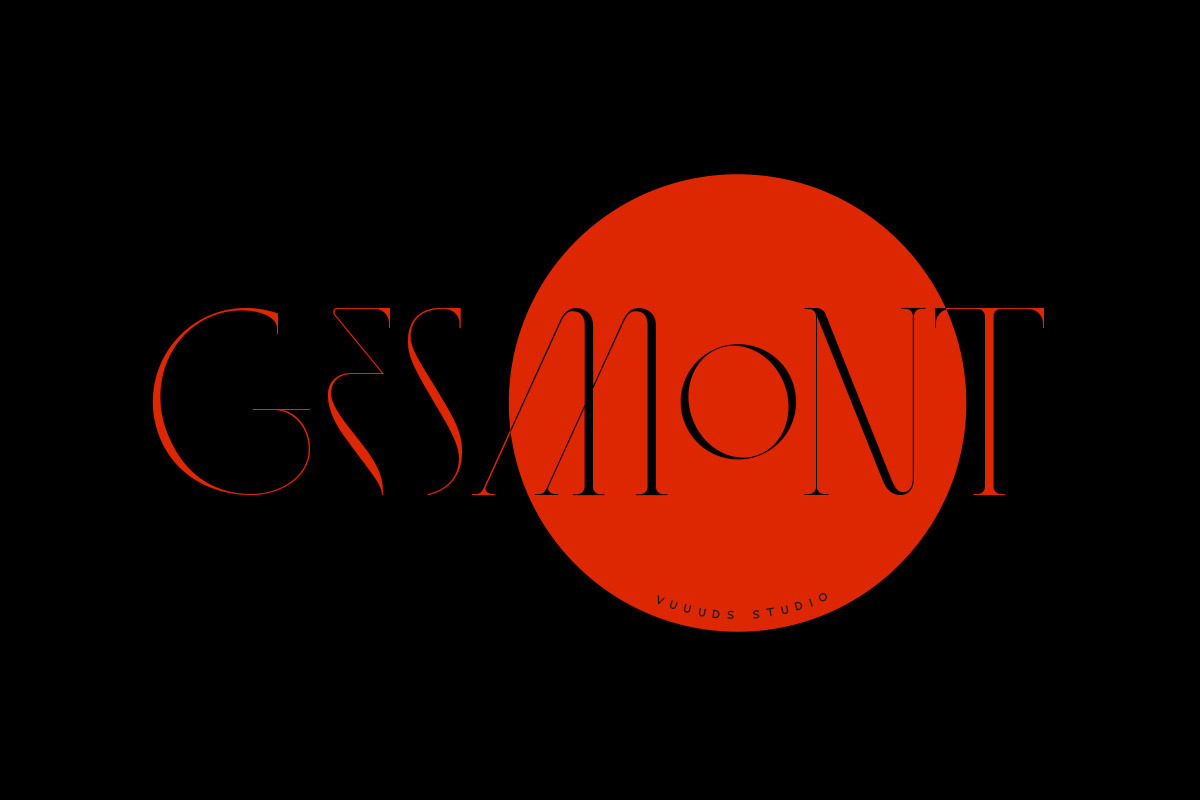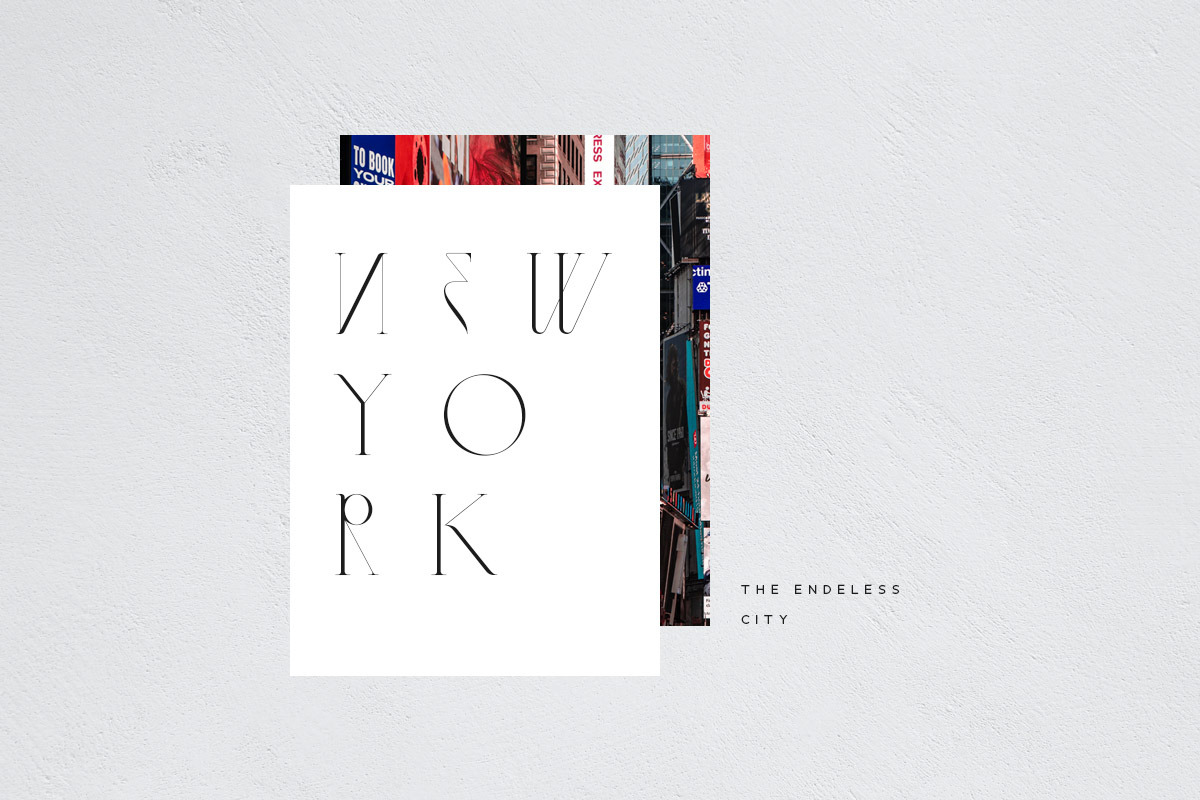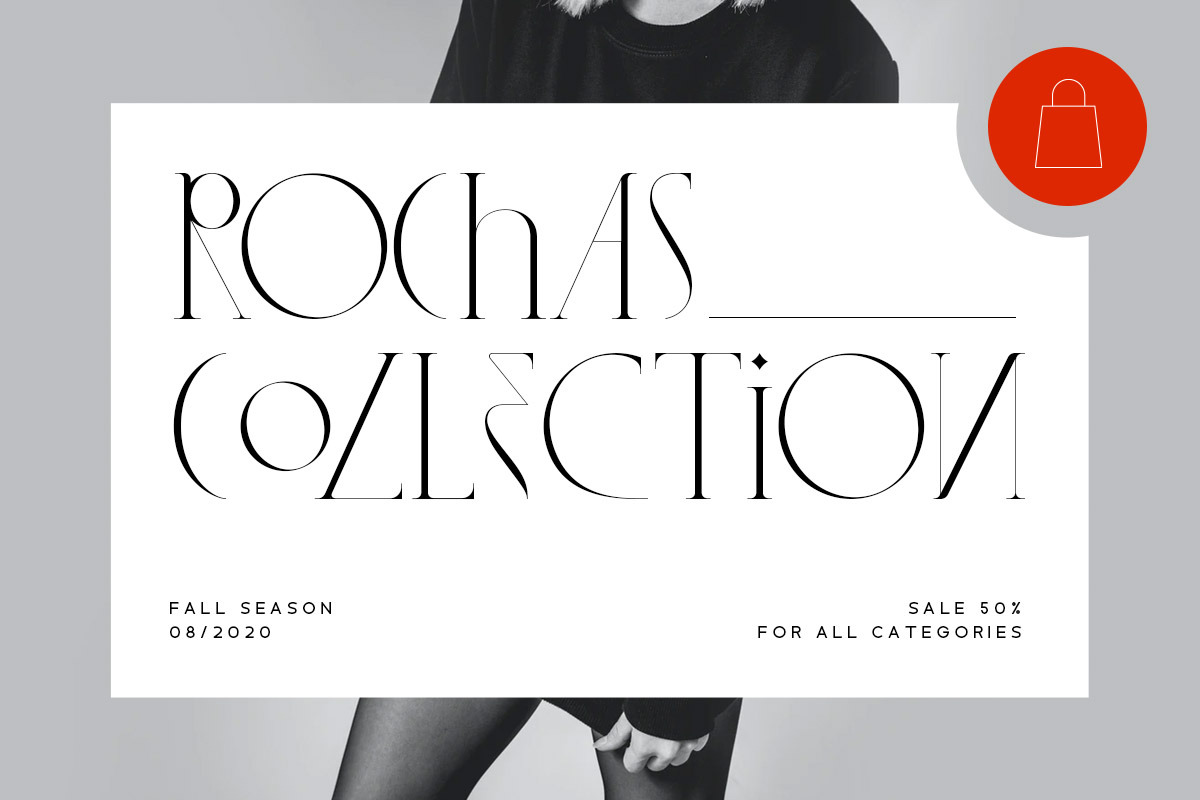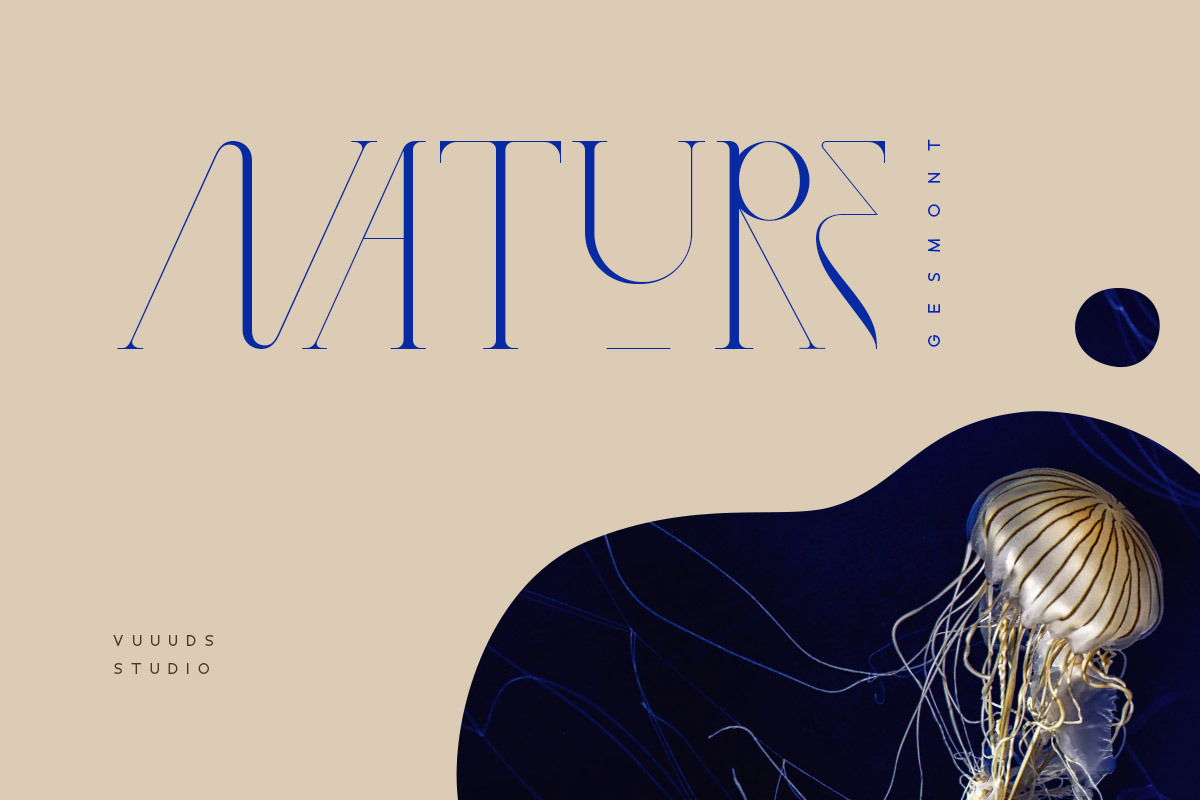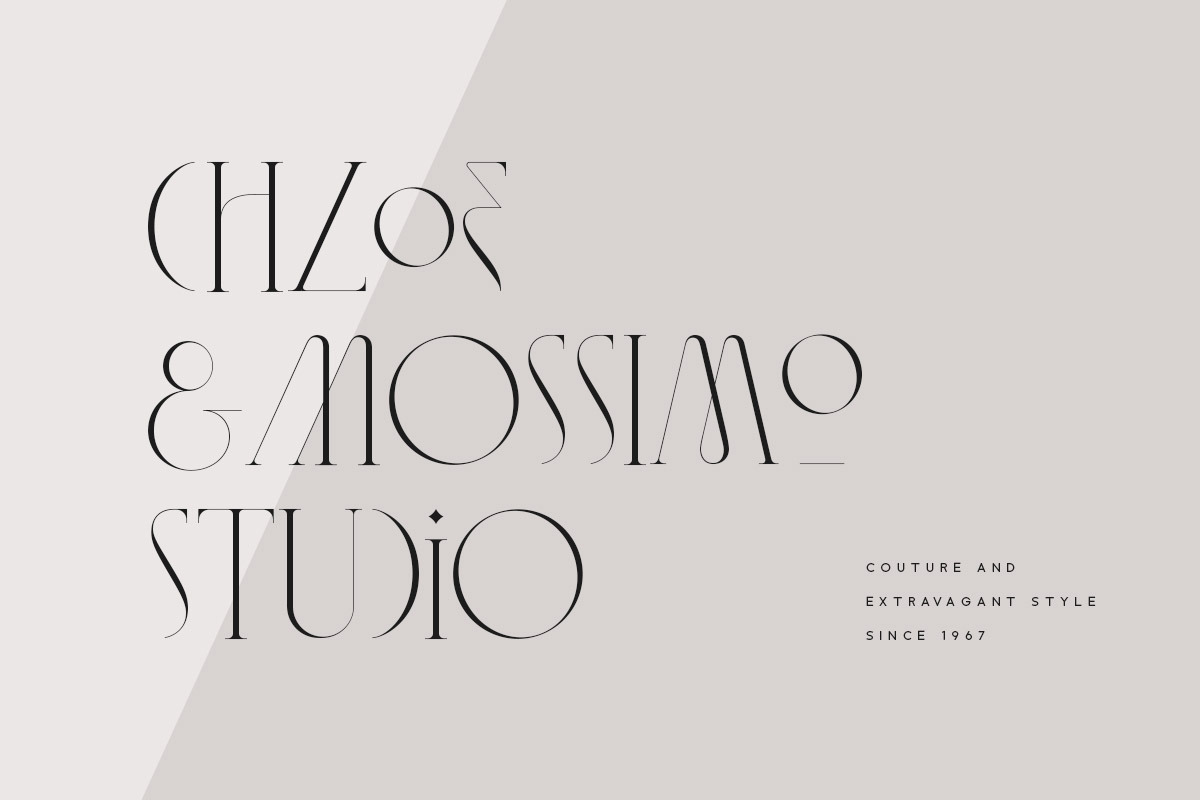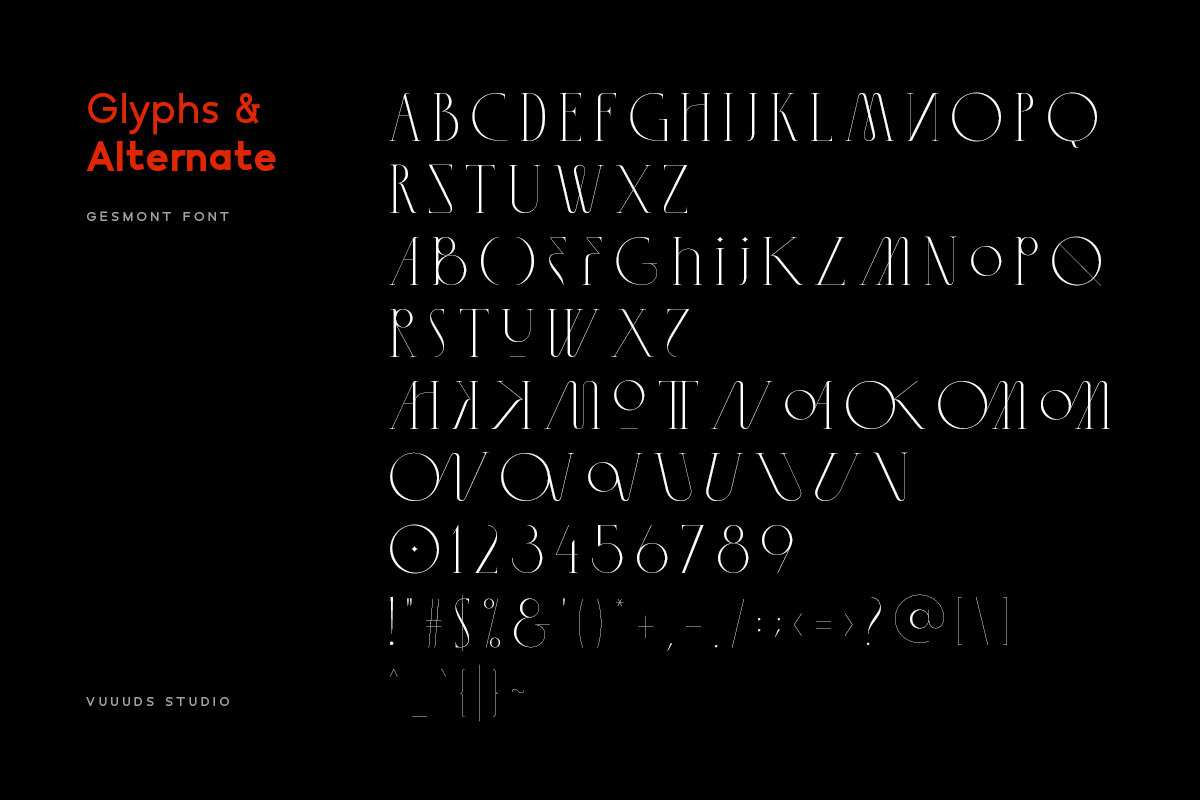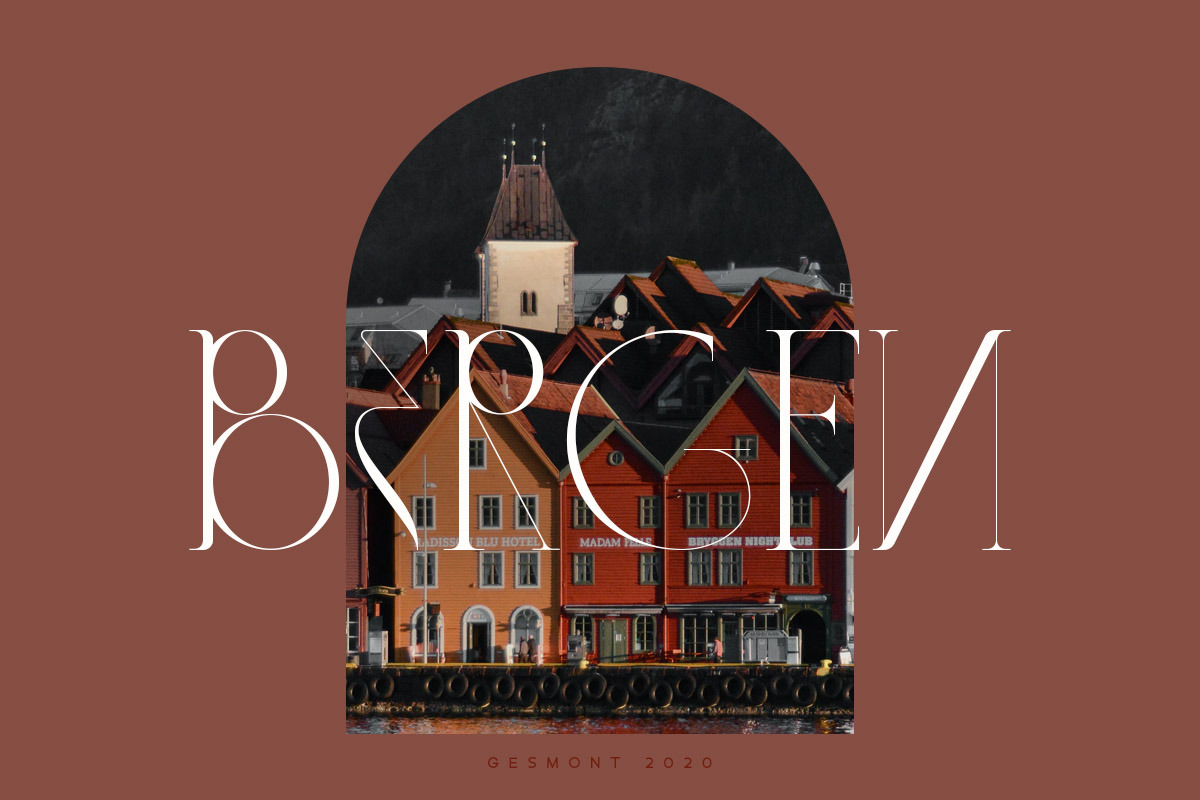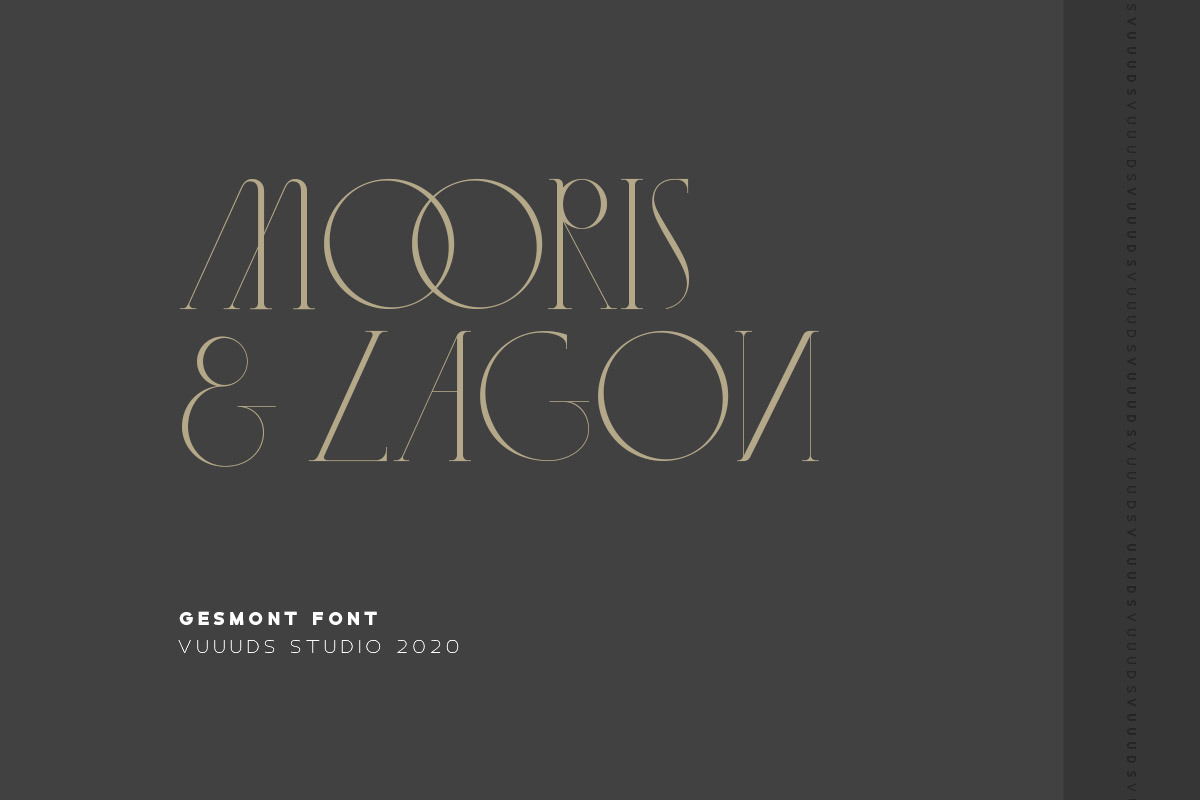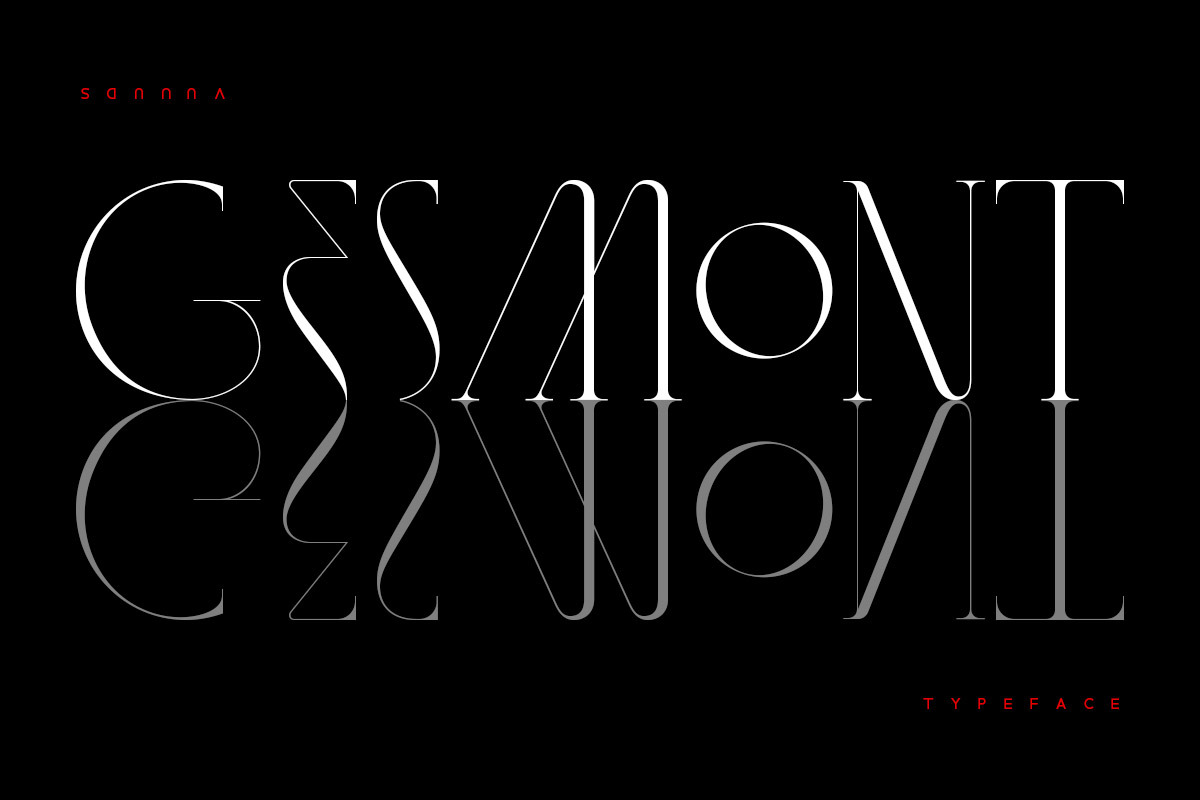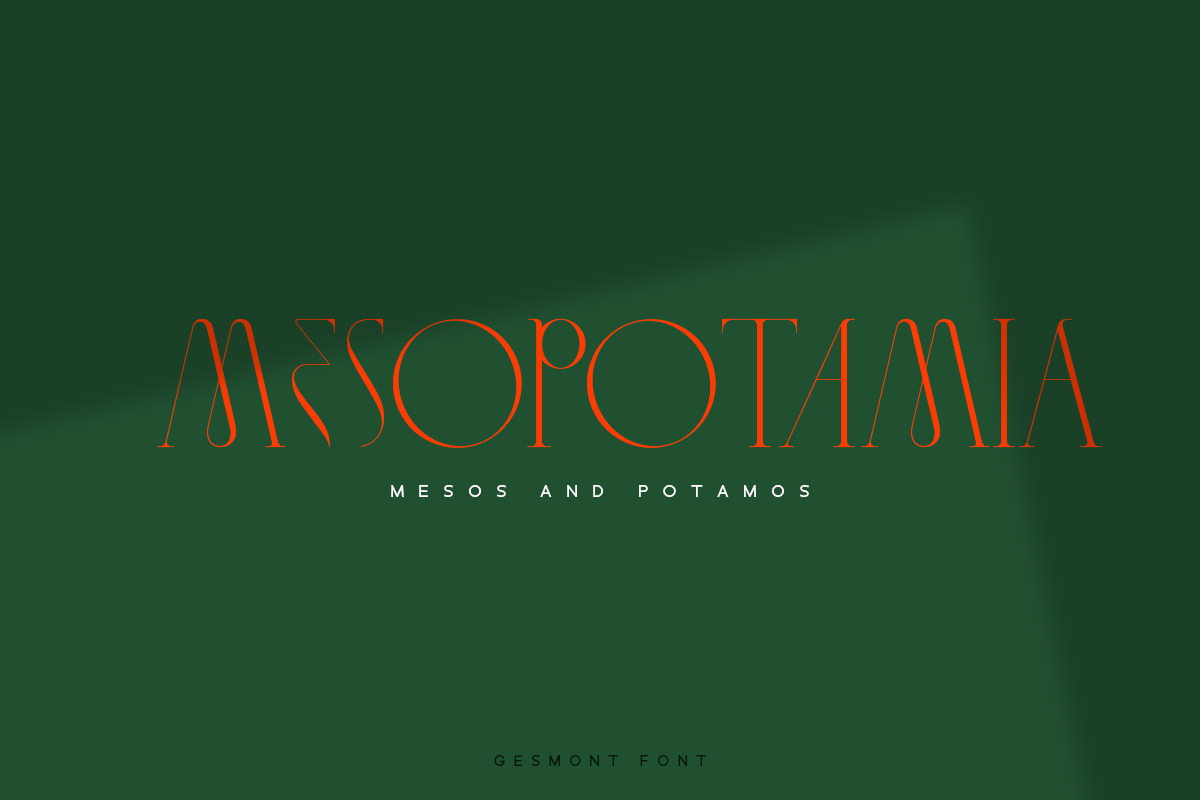
Gesmont
Introducing Gesmont Font!
Gesmont is modern fashion serif font, every single letters have been carefully crafted to make your text looks unique.